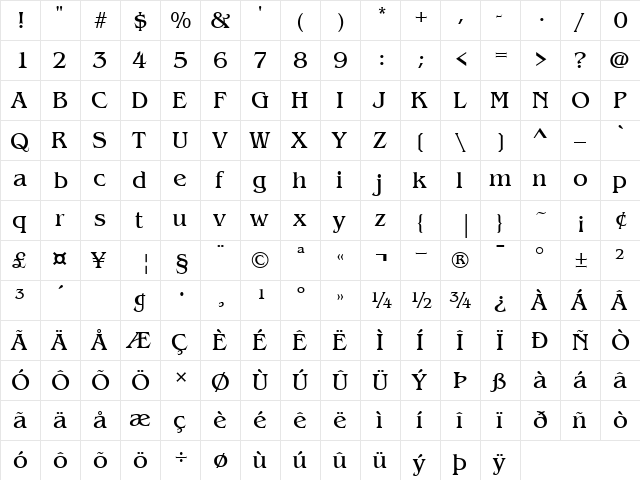
Benguiat Book
Design Context for Benguiat Typeface
Benguiat offers clean, dependable letterforms without strong stylistic allegiance, making it a practical choice for designers who need flexibility.
Pro Tip: Use Benguiat in both headline and body roles to test its range before committing to a single application.